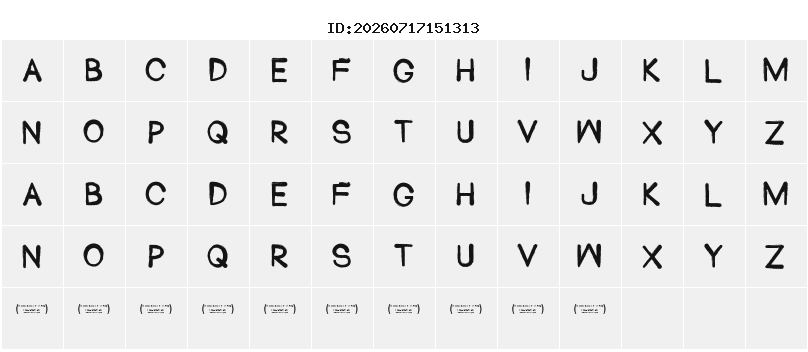
Blackhead Preview
• Font Name: Blackhead
• Full Font Name: Blackhead
• Designer: Chris Vile
• Manufacturer: Font Monger
• Description: Blackhead is a font by Font Monger, designed by Chris Vile in 2014.
About Blackhead.ttf
Blackhead.ttf is a modern, elegant sans-serif font designed for ultimate readability and visual harmony. Perfect for branding, headlines, web design, and print materials.